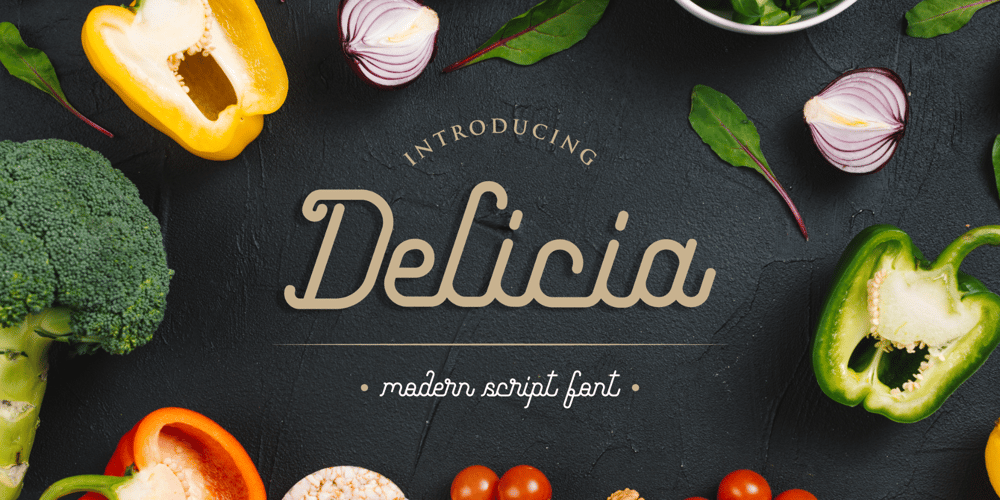
Delicia Food Font Family was designed by Heri Imanudin and published by Krafted. Delicia Food contains 1 styles and family package options. Looking for a delicious font that will put your food business in the spotlight? Whether you’re designing a restaurant logo or an elegant menu, promoting culinary events, or working on a food website, we’d like to help you get noticed.Introducing Delicia Food – a Modern Script Font.This sleek and unconventional font is an excellent choice to show everyone what makes your cuisine special. Give it a shot and see how a great font can transform your brand.